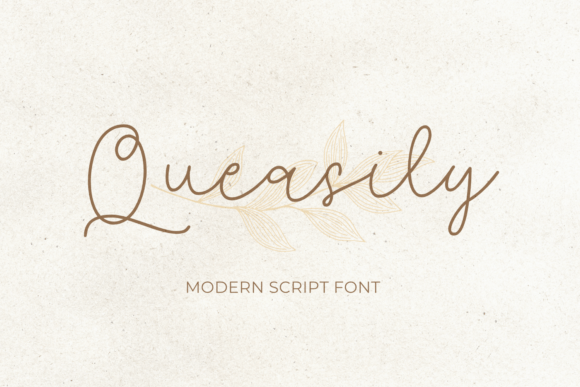
Introducing Queasily Font, the ultimate choice for anyone seeking a font that adds a touch of elegance and simplicity to their work. Created by nhfonts, this superb single line font is designed to make your creations truly stand out. Whether you're working on product packaging, a branding project, magazine covers, social media, or even a wedding, Queasily Font is the perfect addition to your creative toolkit.
With its delicate and graceful lines, Queasily Font brings a unique charm to any design. Crafted with utmost precision, this script font effortlessly captures attention and leaves a lasting impression. Its versatility knows no bounds, making it suitable for a wide range of applications.
Are you a cake designer looking to add a personal and sophisticated touch to your creations? Queasily Font is the perfect choice for cake toppers and decorations. Its elegant strokes and graceful curves will make your cakes truly unforgettable. No matter the occasion, whether it's a wedding, birthday, or any other celebration, Queasily Font will add that extra touch of magic.
If you're a Cricut enthusiast, you'll be thrilled to discover that Queasily Font is tailor-made for your cutting machine. Its single line design ensures clean and precise cuts, allowing you to create stunning crafts and personalized projects effortlessly. Let your imagination run wild as you bring your ideas to life with this incredible font.
Queasily Font is not only visually captivating but also emotionally engaging. When you use this font, your words come alive, conveying your message with a touch of elegance and sophistication. It adds a sense of charm and personality, making your designs more relatable and memorable.
With Queasily Font, the possibilities are endless. Let your creativity soar as you explore its vast potential. Whether you're designing a logo, crafting social media posts, or creating eye-catching graphics for your website, this font will elevate your work to new heights.
Don't settle for ordinary fonts that blend into the background. Choose Queasily Font, and let your designs speak volumes. Its simplicity and elegance will captivate your audience, leaving a lasting impression. Elevate your creative projects with this extraordinary font and unlock a world of endless possibilities.